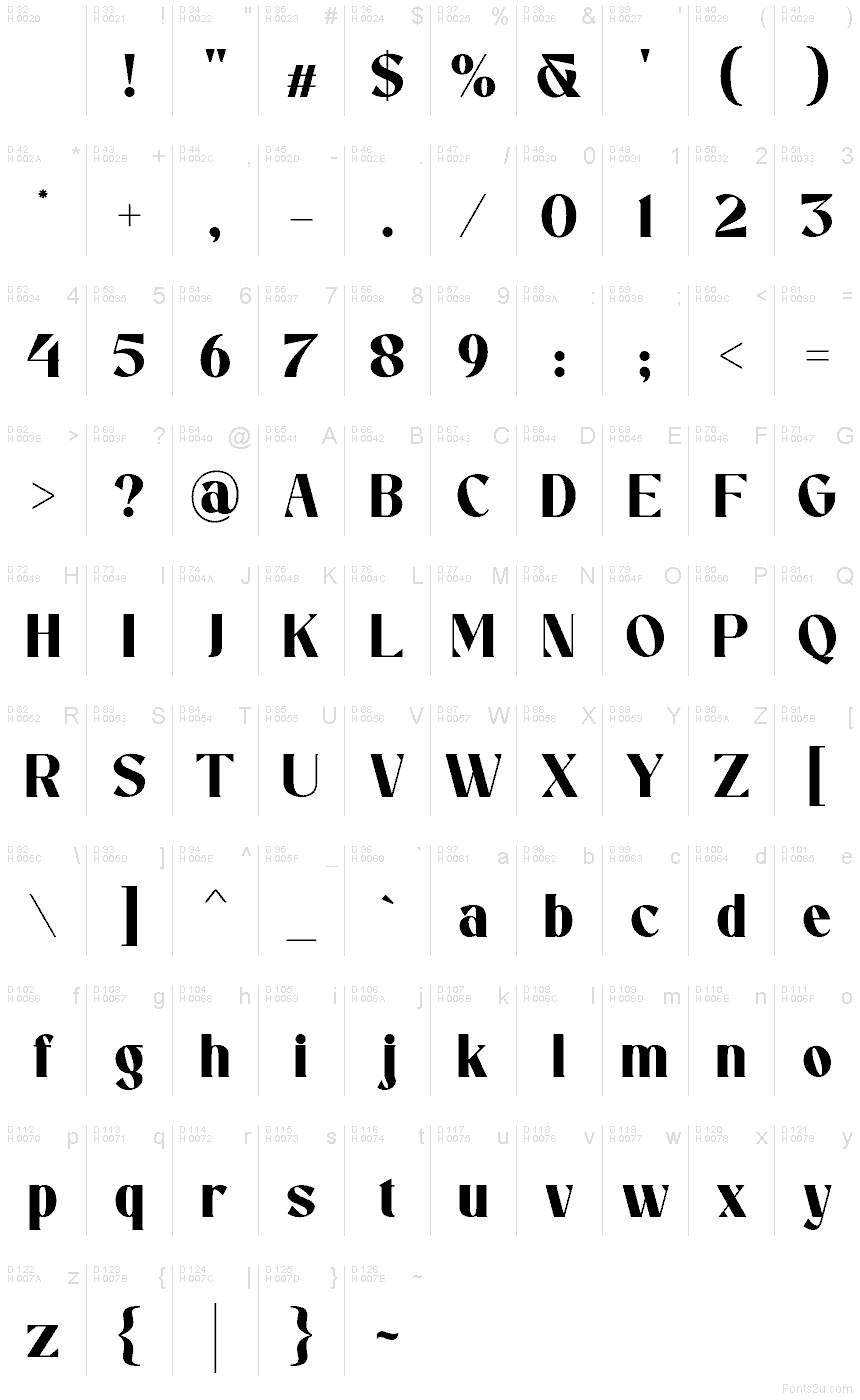
OvaneRegular-Regular
Owane font is a free retro display creation by Tebaltipis Studio cleverly designed with rounded letters of a high contrast. Its appearance as well as style is outstandingly elegant and modern, given that this typeface presents itself as bold and lively at the same time. Ovane’s sophisticated edges make it perfect for grabbing visual attention.
Take advantage of this unique typing family in tech poster designs, digital website headlines, social-media posts, UI displays, flyers, advertisement banners, magazine covers and regular titles. If you’re looking for signature styles or branding typography logotypes that leave a mark and remain memorable to your clients – Ovane is your way to go!